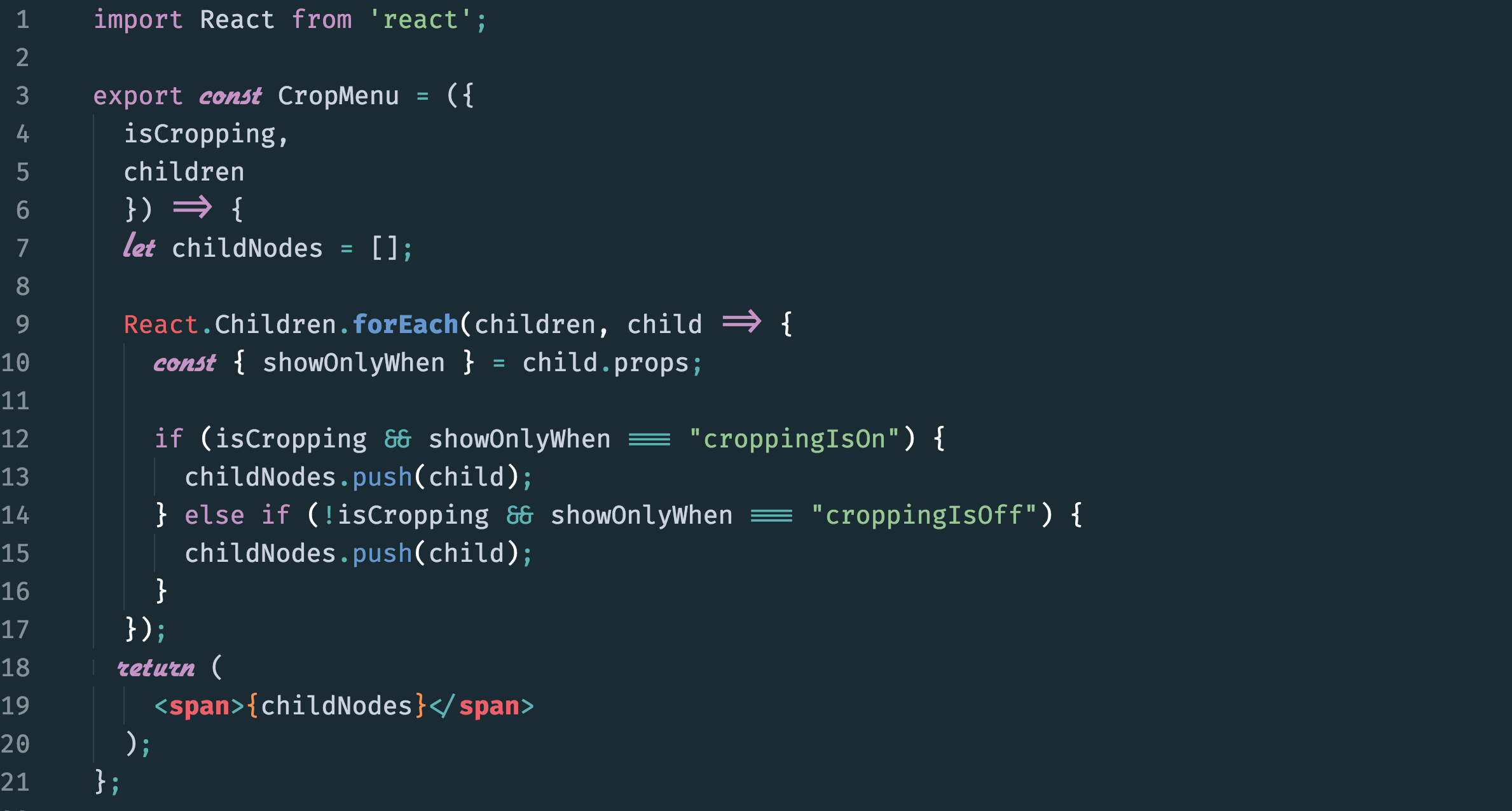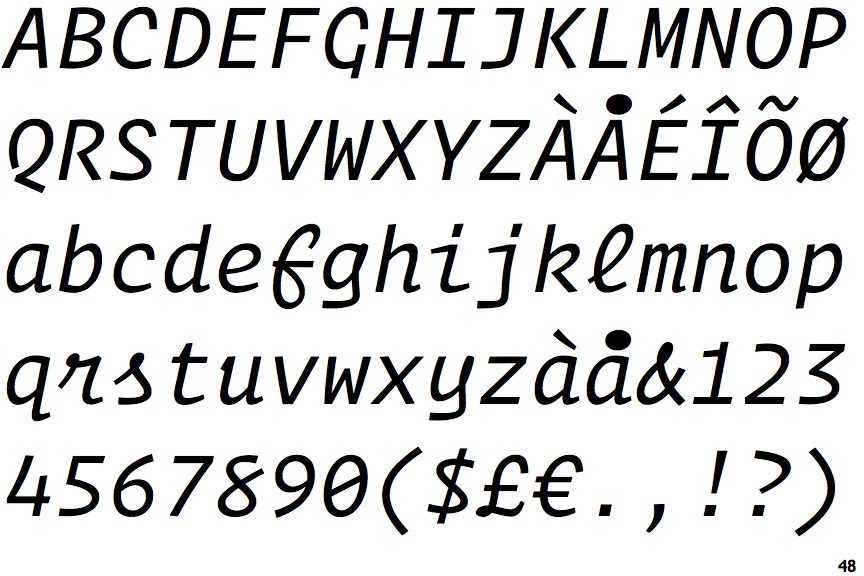
Operator Mono Font
Operator Mono Font - These ligatures were custom created using glyphs. I’ll like to share the story of why and what i learned from this incident. This project will generate new opentype fonts for operator mono that includes ligatures similar to those found in the popular fira code font. All 64 styles of operator pro and operator mono. Operator mono pushes the bounds of the style, offering a solid range of weights. Fast forward two years, i decided to stop using operator mono and switch back to a free font. Save $178 when buying the complete collection!
Fast forward two years, i decided to stop using operator mono and switch back to a free font. Operator mono pushes the bounds of the style, offering a solid range of weights. These ligatures were custom created using glyphs. This project will generate new opentype fonts for operator mono that includes ligatures similar to those found in the popular fira code font. I’ll like to share the story of why and what i learned from this incident. Save $178 when buying the complete collection! All 64 styles of operator pro and operator mono.
Operator mono pushes the bounds of the style, offering a solid range of weights. Save $178 when buying the complete collection! Fast forward two years, i decided to stop using operator mono and switch back to a free font. These ligatures were custom created using glyphs. I’ll like to share the story of why and what i learned from this incident. This project will generate new opentype fonts for operator mono that includes ligatures similar to those found in the popular fira code font. All 64 styles of operator pro and operator mono.
This project will generate new opentype fonts for operator mono that includes ligatures similar to those found in the popular fira code font. Save $178 when buying the complete collection! These ligatures were custom created using glyphs. Fast forward two years, i decided to stop using operator mono and switch back to a free font. All 64 styles of operator.
These ligatures were custom created using glyphs. This project will generate new opentype fonts for operator mono that includes ligatures similar to those found in the popular fira code font. Save $178 when buying the complete collection! Operator mono pushes the bounds of the style, offering a solid range of weights. I’ll like to share the story of why and.
Fast forward two years, i decided to stop using operator mono and switch back to a free font. Save $178 when buying the complete collection! I’ll like to share the story of why and what i learned from this incident. This project will generate new opentype fonts for operator mono that includes ligatures similar to those found in the popular.
Save $178 when buying the complete collection! Fast forward two years, i decided to stop using operator mono and switch back to a free font. Operator mono pushes the bounds of the style, offering a solid range of weights. This project will generate new opentype fonts for operator mono that includes ligatures similar to those found in the popular fira.
Save $178 when buying the complete collection! All 64 styles of operator pro and operator mono. Fast forward two years, i decided to stop using operator mono and switch back to a free font. Operator mono pushes the bounds of the style, offering a solid range of weights. This project will generate new opentype fonts for operator mono that includes.
Install Operator Mono Font, Best coding font for free 😁 Best of 2022 🔥
Save $178 when buying the complete collection! All 64 styles of operator pro and operator mono. This project will generate new opentype fonts for operator mono that includes ligatures similar to those found in the popular fira code font. I’ll like to share the story of why and what i learned from this incident. Fast forward two years, i decided.
Operator Mono Font Family Download Free for Desktop & Webfont
All 64 styles of operator pro and operator mono. I’ll like to share the story of why and what i learned from this incident. This project will generate new opentype fonts for operator mono that includes ligatures similar to those found in the popular fira code font. Fast forward two years, i decided to stop using operator mono and switch.
Operator Mono Ligatures uknmr
Operator mono pushes the bounds of the style, offering a solid range of weights. Fast forward two years, i decided to stop using operator mono and switch back to a free font. I’ll like to share the story of why and what i learned from this incident. All 64 styles of operator pro and operator mono. This project will generate.
Operator Mono Programming Font Review YouTube
Fast forward two years, i decided to stop using operator mono and switch back to a free font. I’ll like to share the story of why and what i learned from this incident. This project will generate new opentype fonts for operator mono that includes ligatures similar to those found in the popular fira code font. All 64 styles of.
This Project Will Generate New Opentype Fonts For Operator Mono That Includes Ligatures Similar To Those Found In The Popular Fira Code Font.
Operator mono pushes the bounds of the style, offering a solid range of weights. Save $178 when buying the complete collection! I’ll like to share the story of why and what i learned from this incident. These ligatures were custom created using glyphs.
All 64 Styles Of Operator Pro And Operator Mono.
Fast forward two years, i decided to stop using operator mono and switch back to a free font.